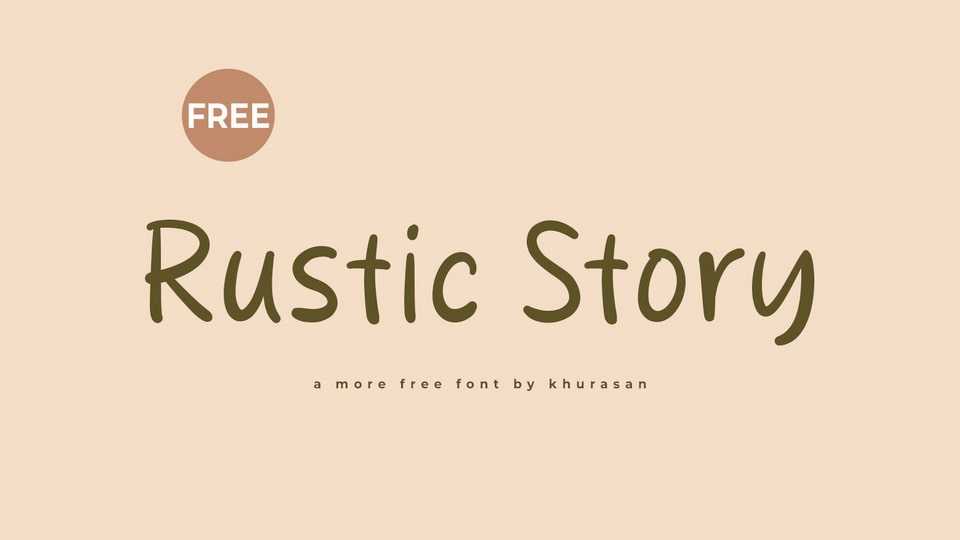
Download Rustic Story font, a charming handwritten typeface that exudes the warmth and authenticity of rustic craftsmanship. Rustic Story font is carefully crafted with natural, uneven strokes and organic details, evoking the feeling of hand-lettered signage or notes.